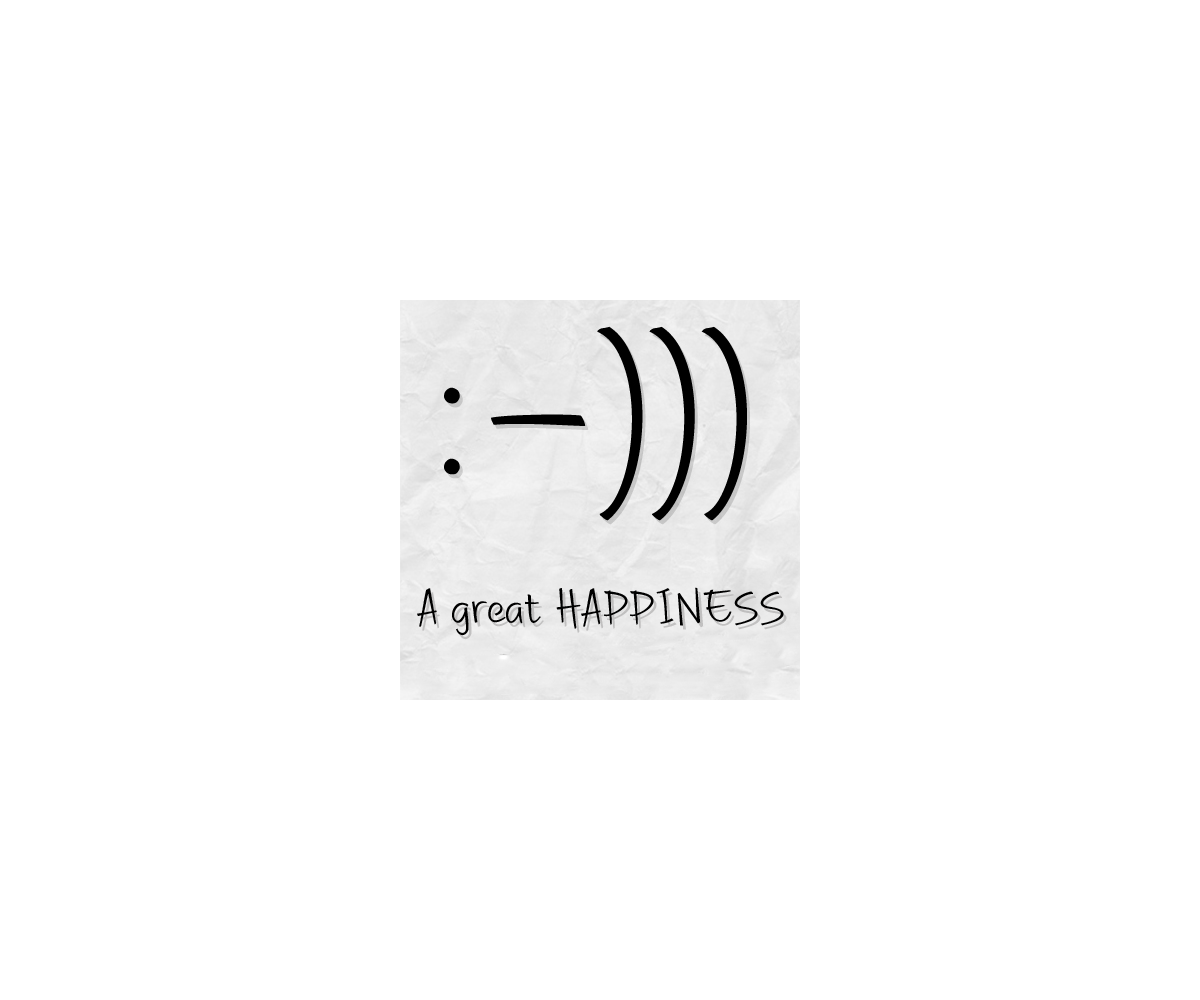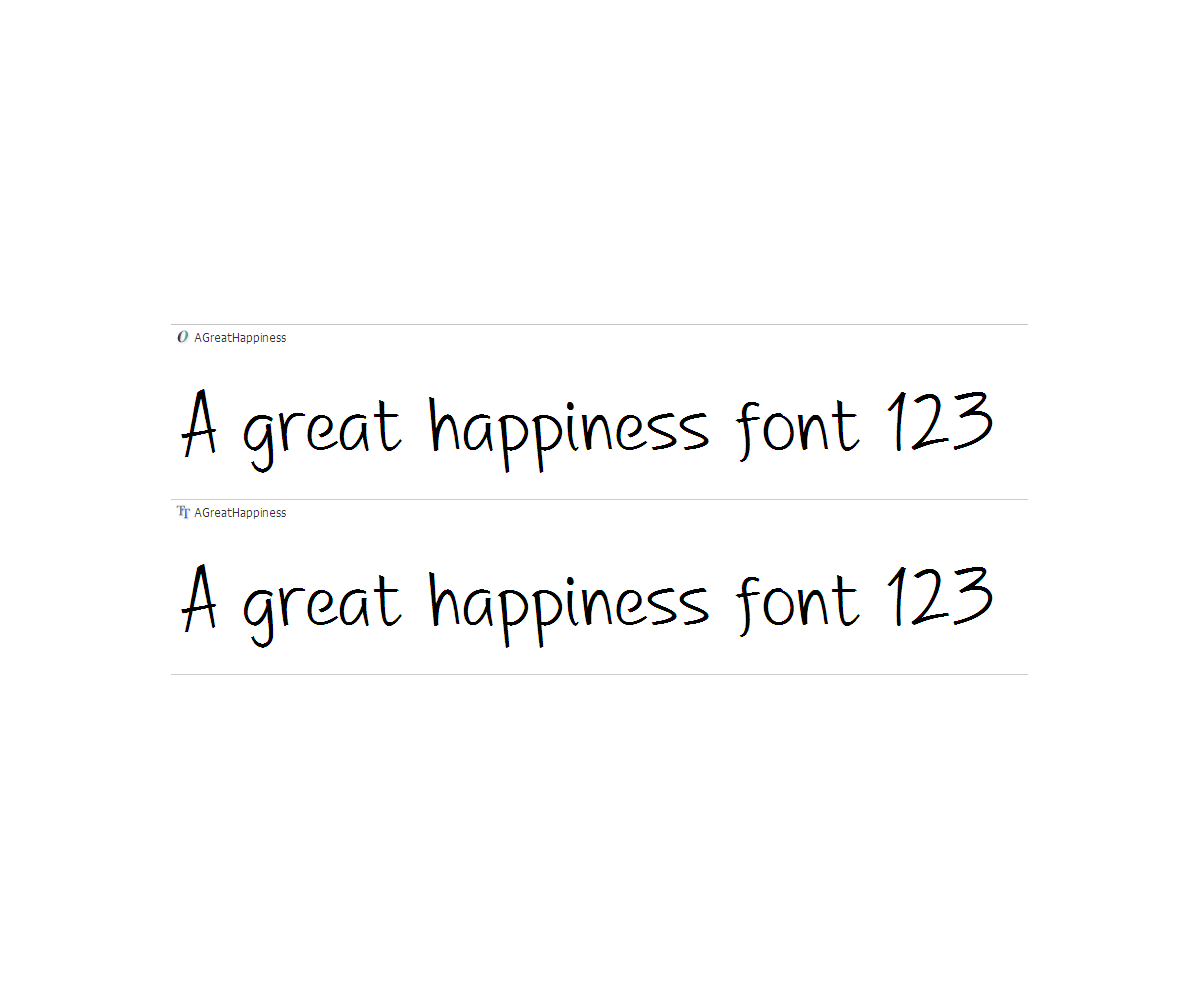
A Great Happiness - font
Friendly font - A Great Happiness font (2 files, .TTF, .OTF).
Modern handwritten font - include pen font with numbers (2 files, .TTF, .OTF).